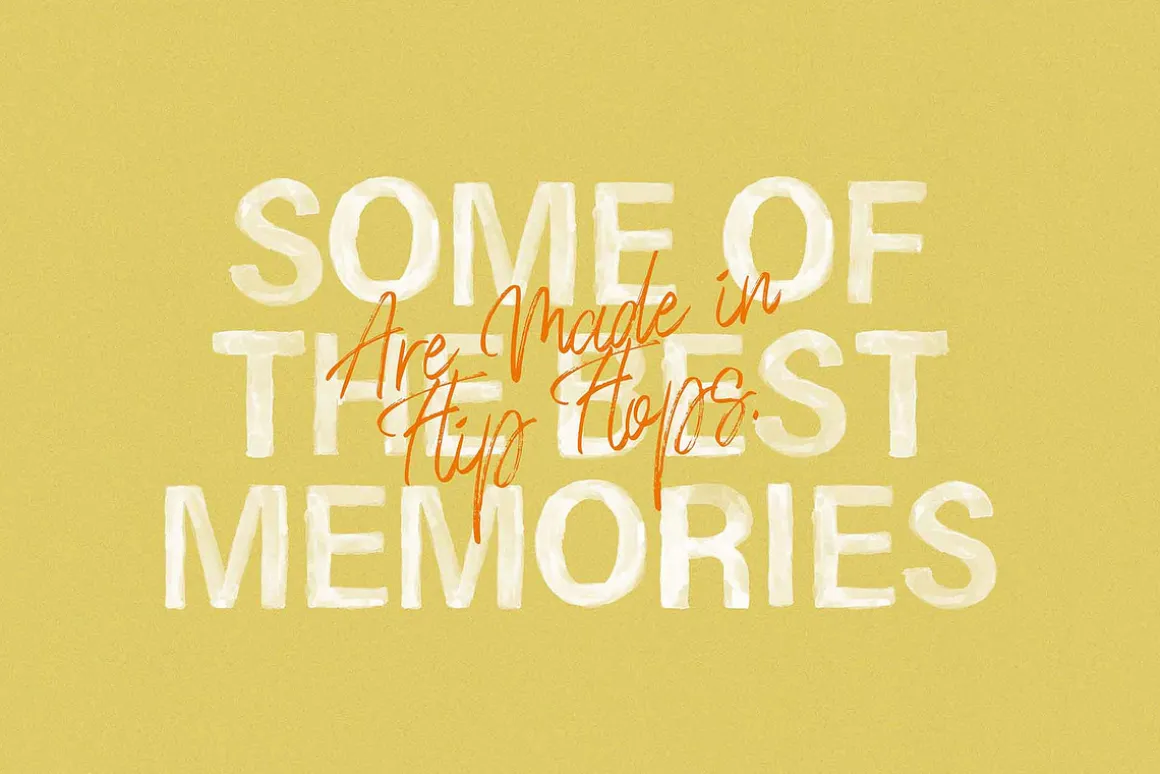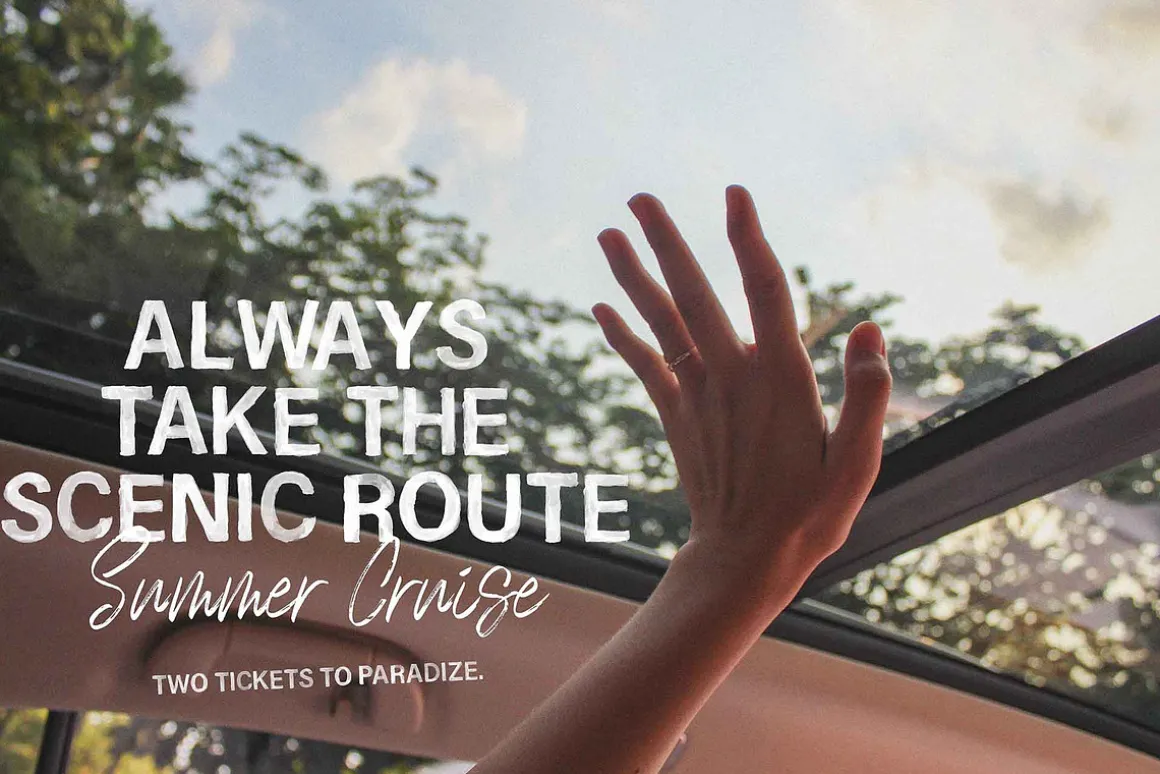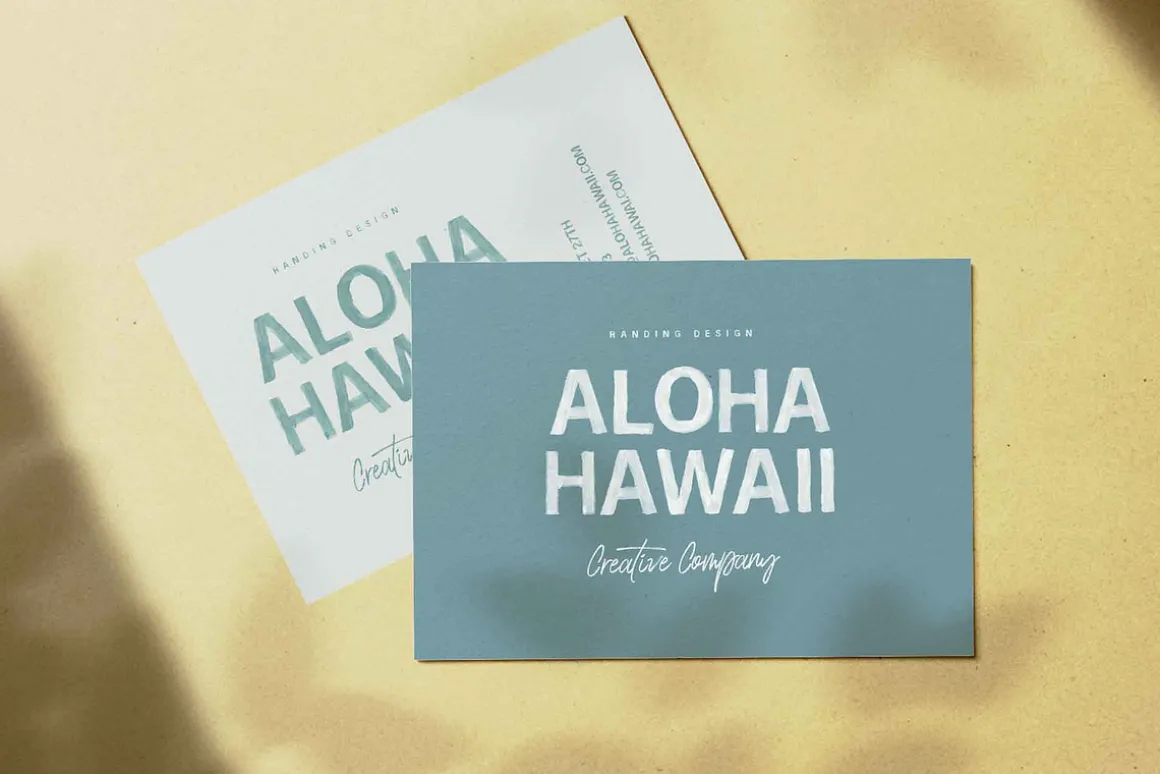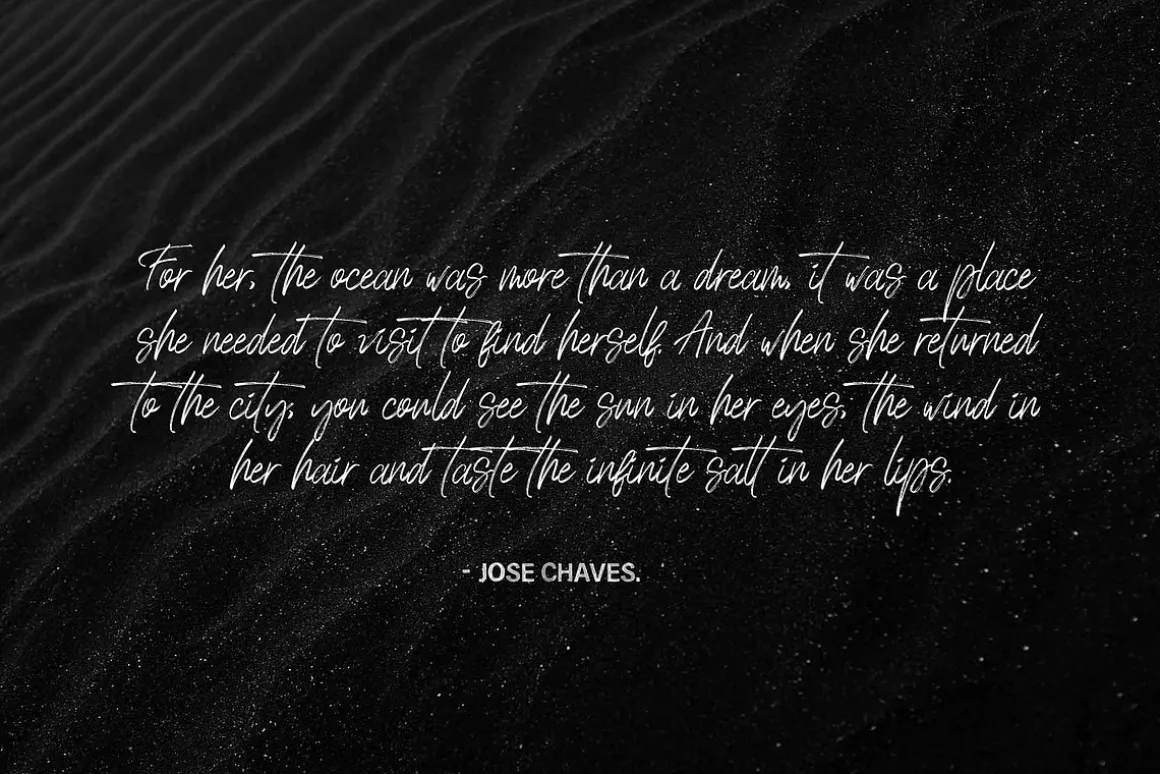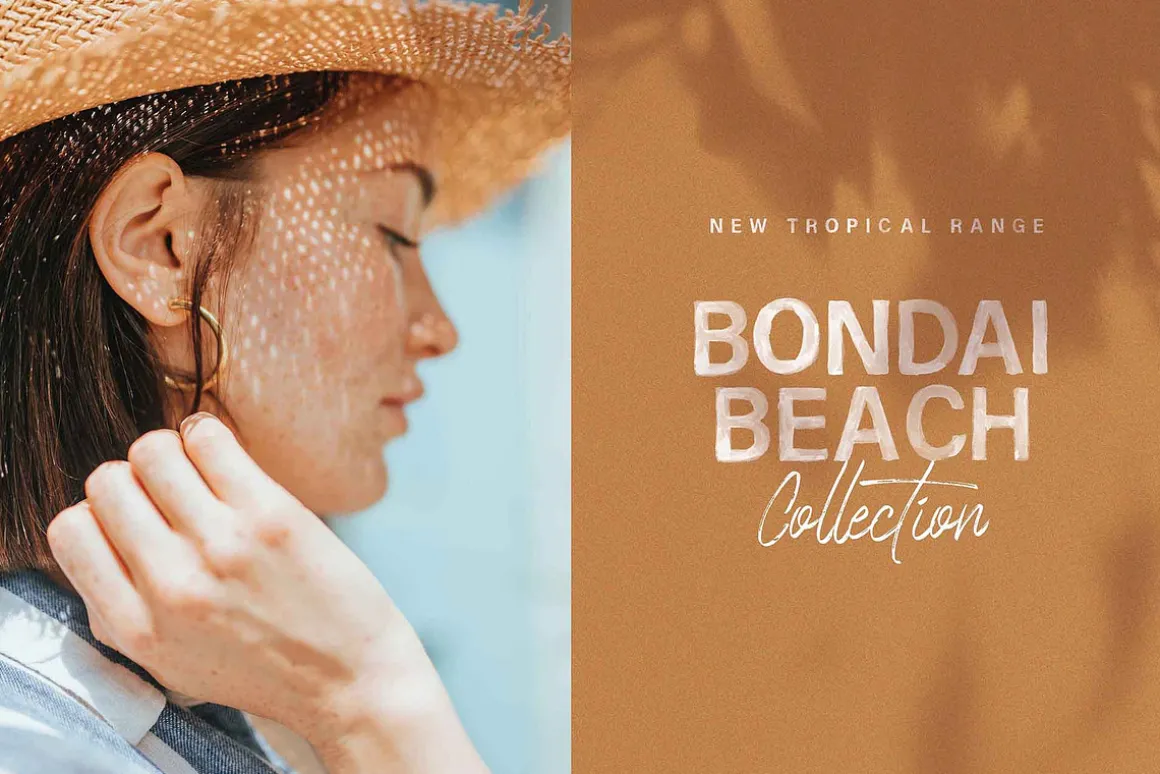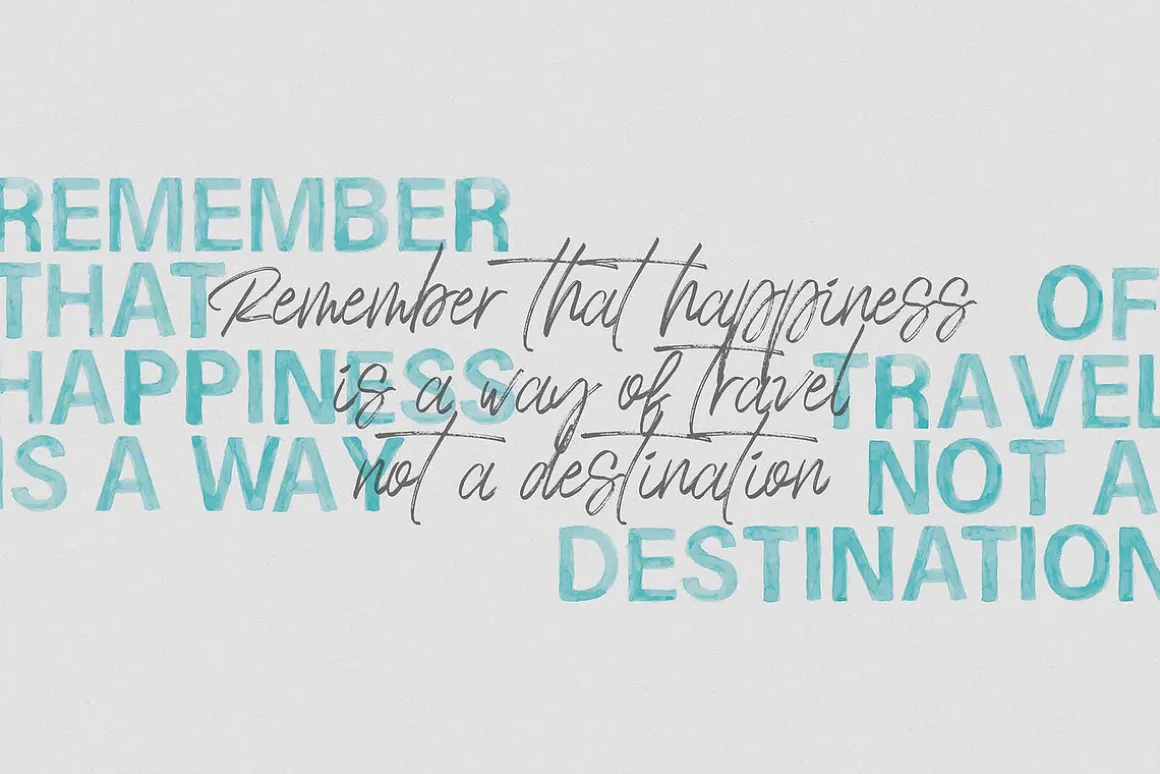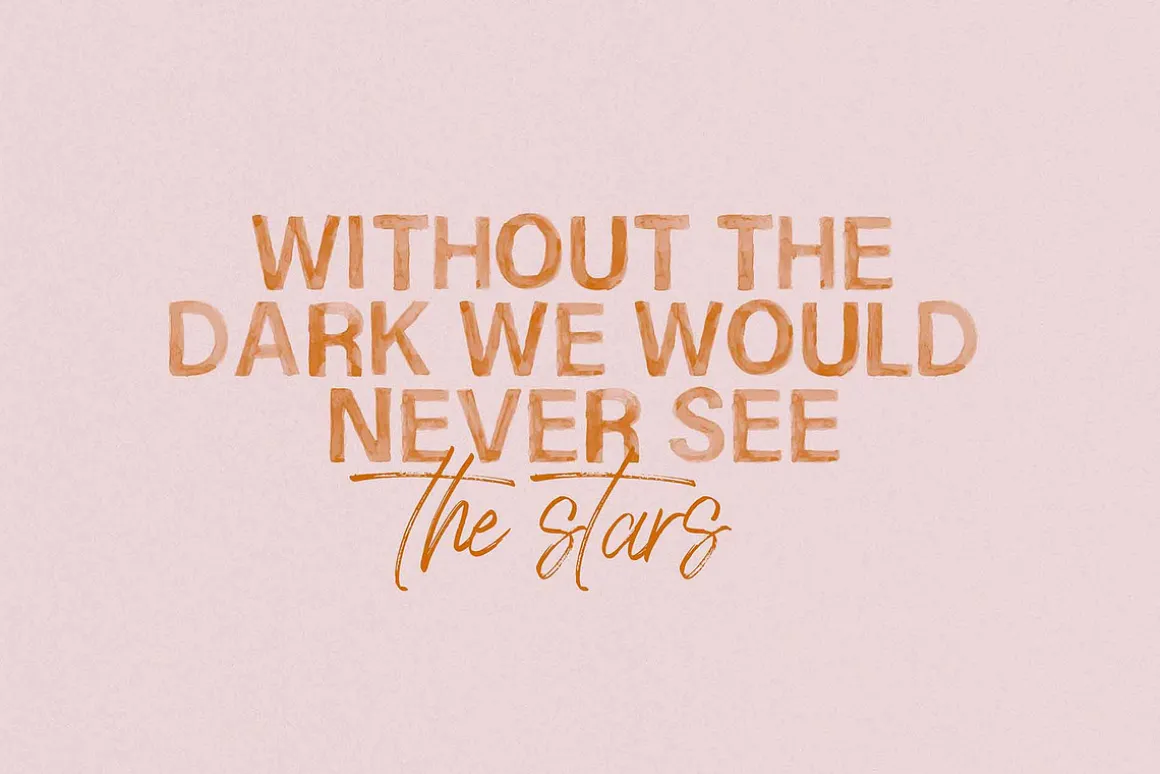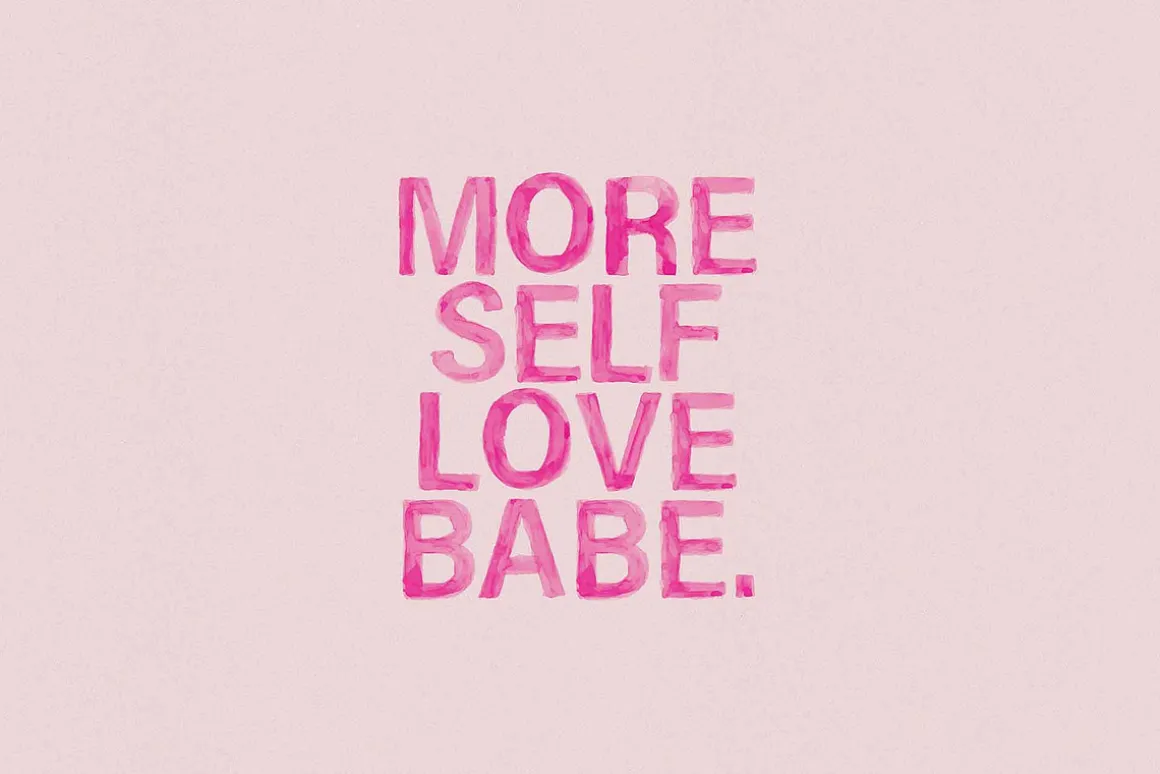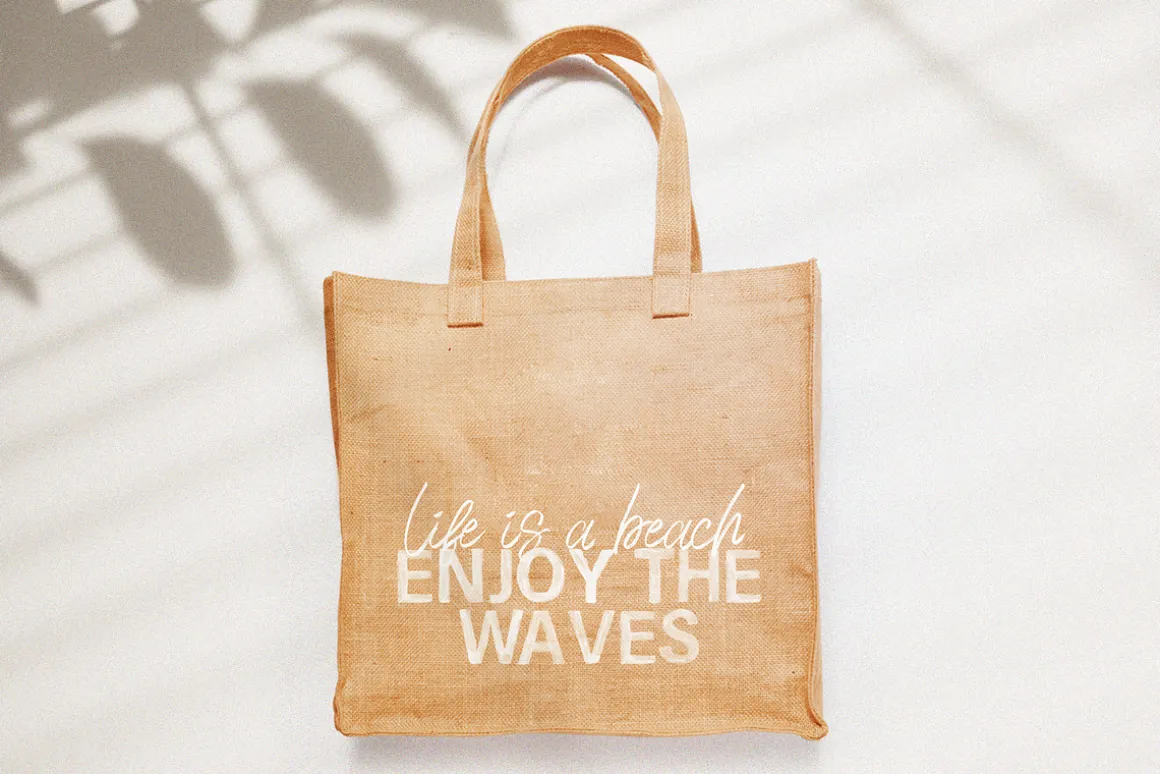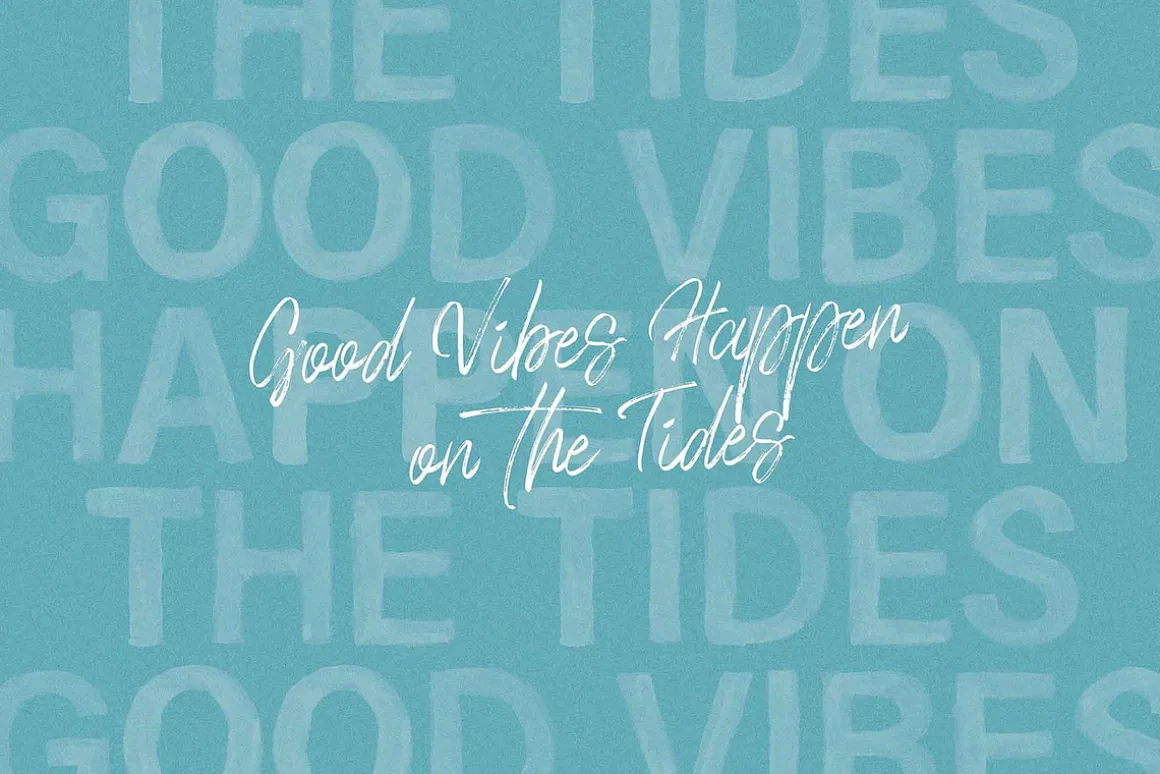
Grab your sunscreen and your favorite shades while I introduce you to the all-new Sunkissed x Font Duo!
A darling and trendy font collection that includes an SVG and a regular font. Make sure to check out the previews to get inspired with limitless possibilities of things you can create. I made sure to included a wide variety of design ideas to get your creative juices flowing in no time! Be sure to scroll through all images 🙂
The realistic watercolor and texture of the fonts add extra originality and character other regular fonts can’t offer. Type away watercolor font without having to paint it yourself!The stylish textured script was designed to complement the watercolor sans font, but it looks amazing on its own as well!